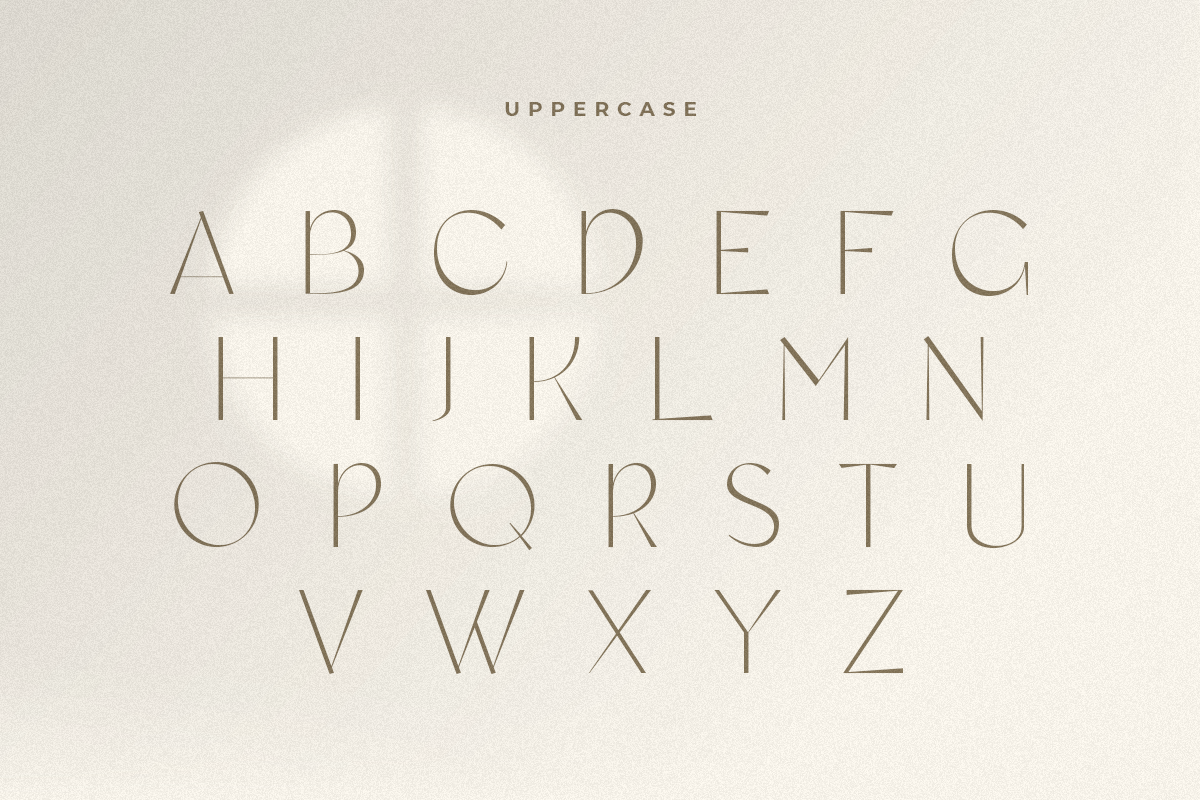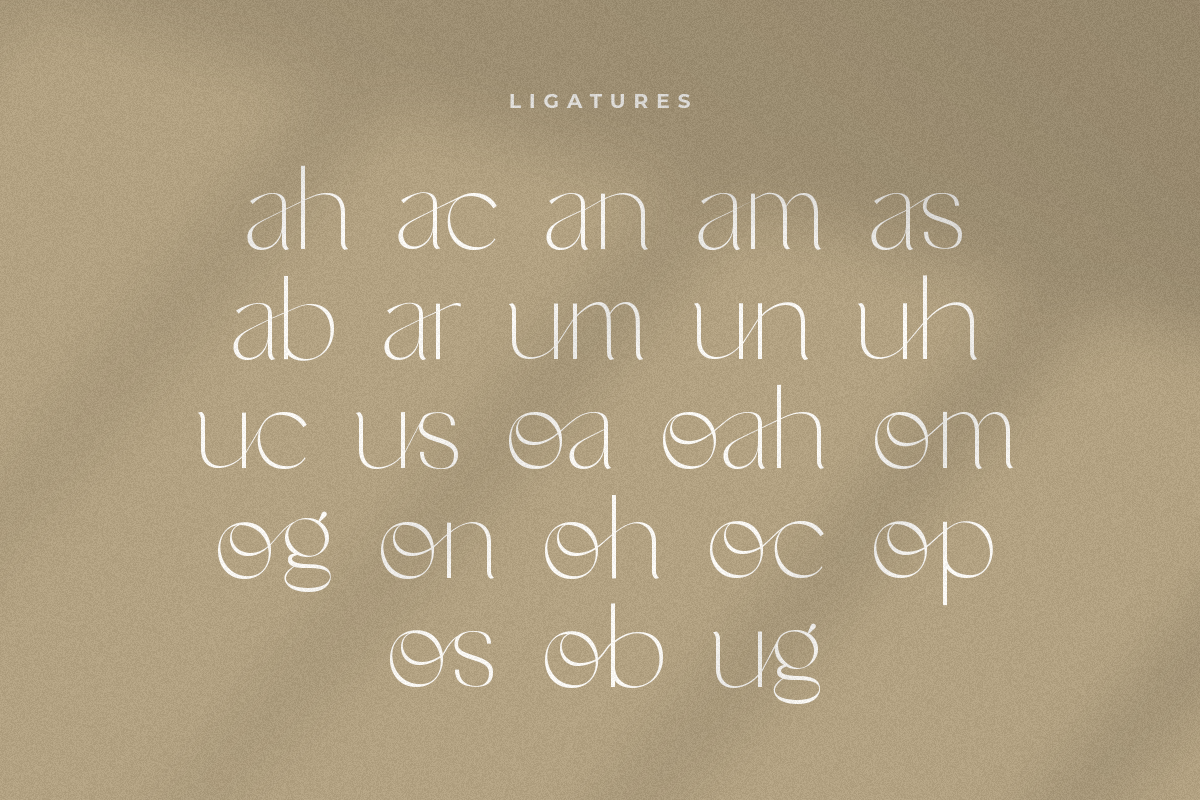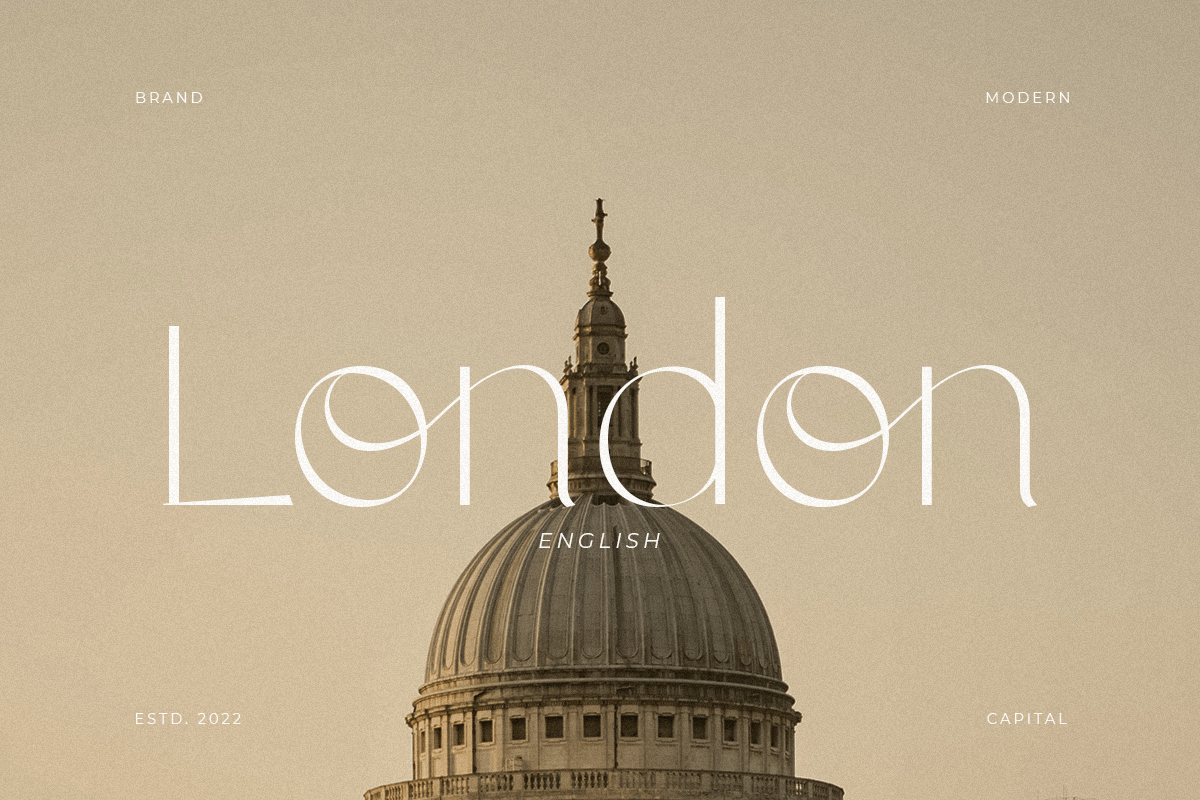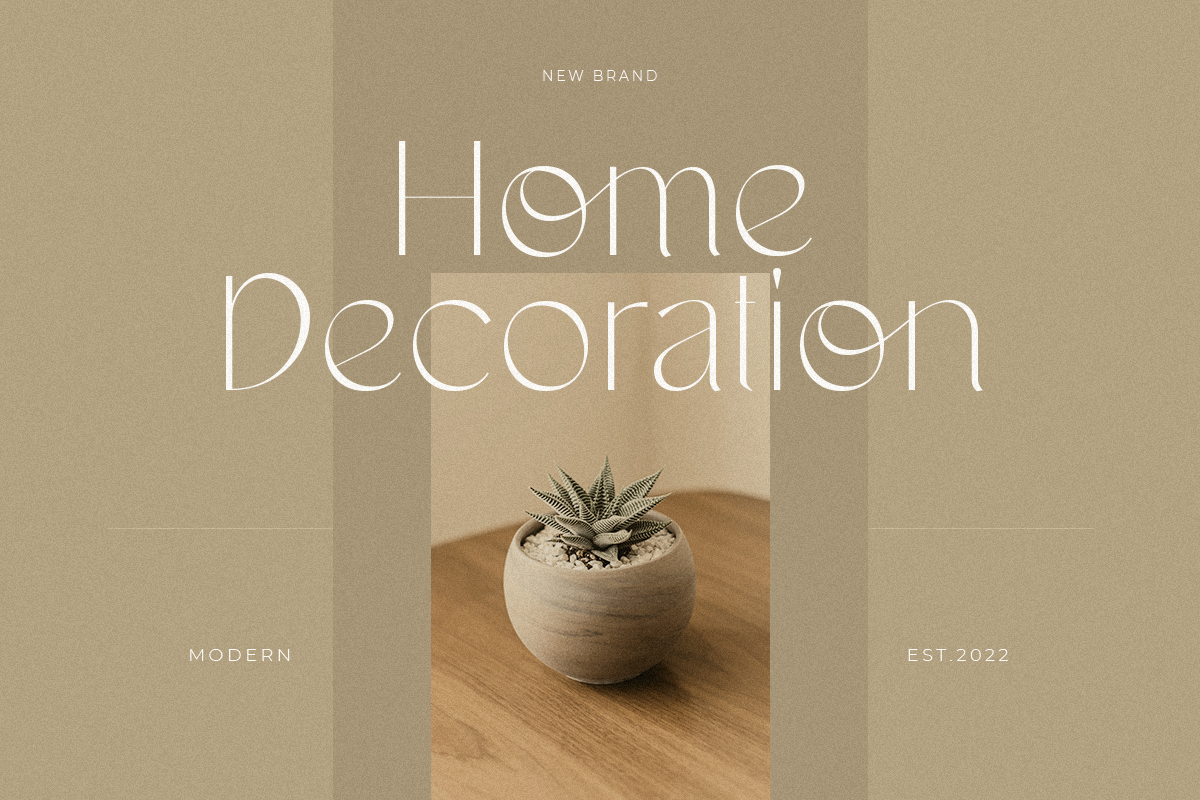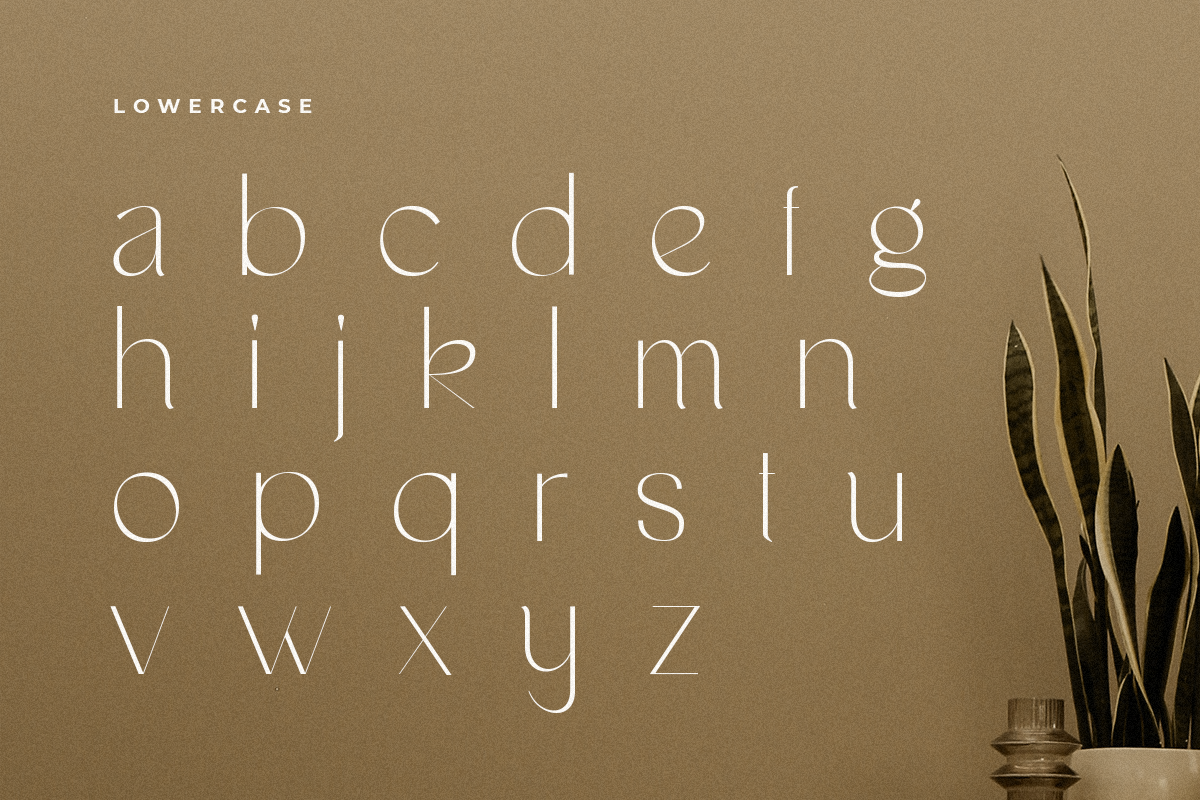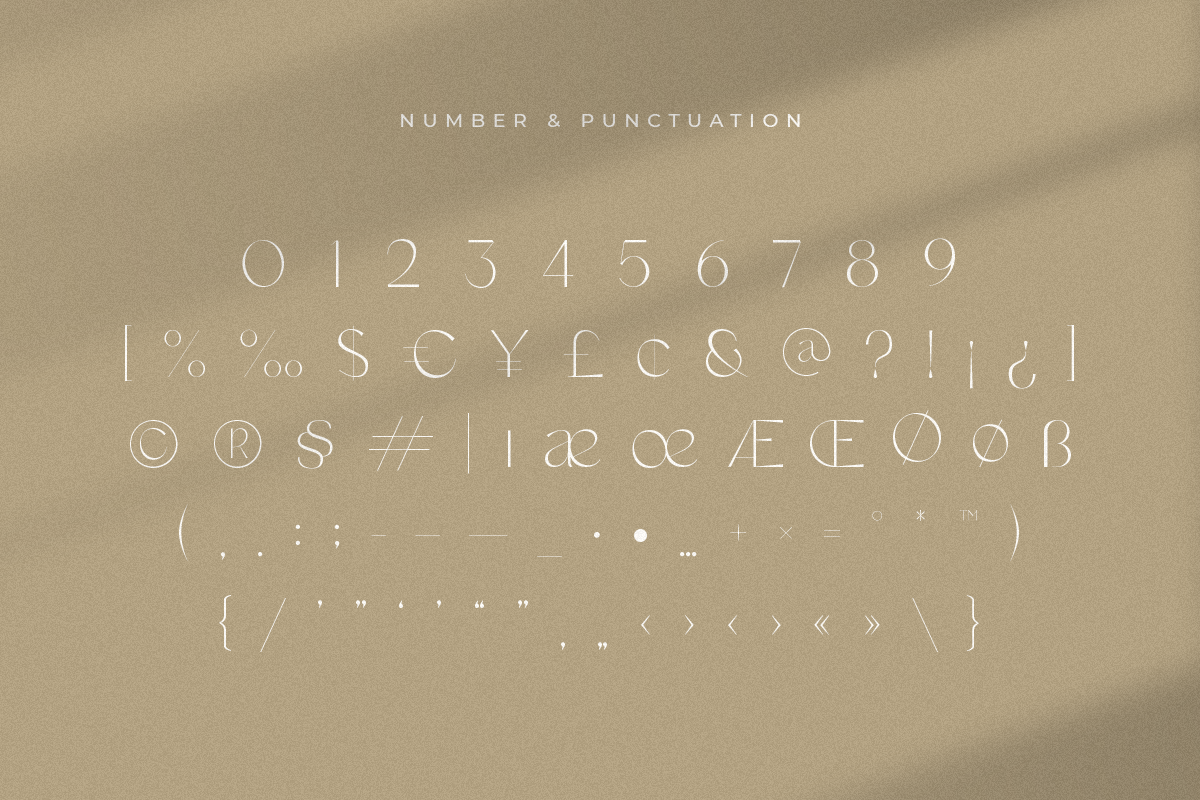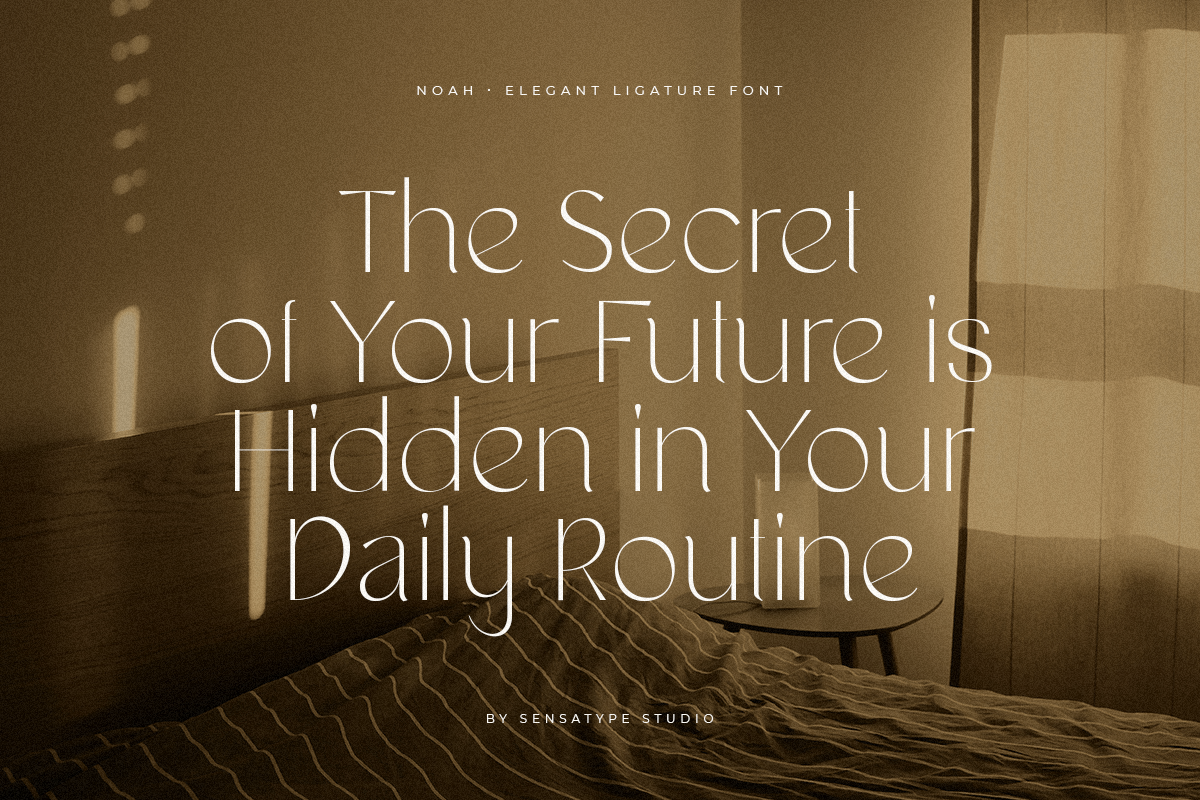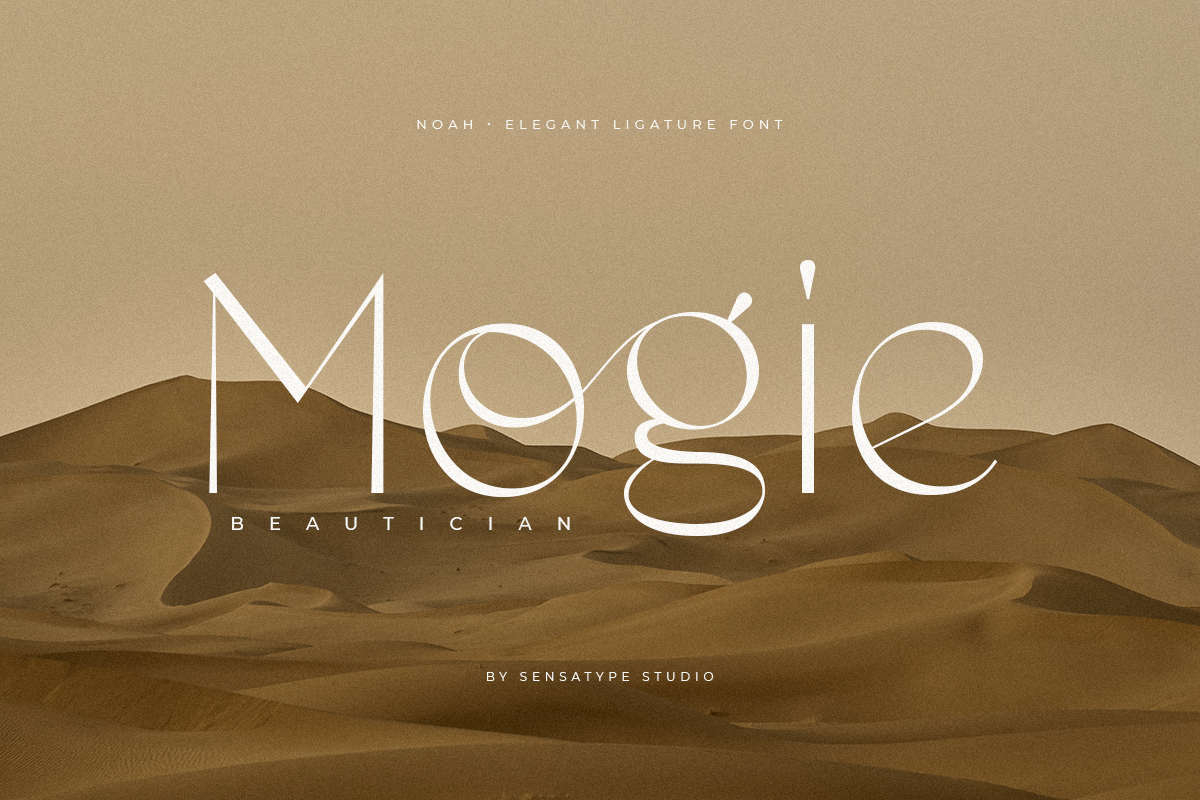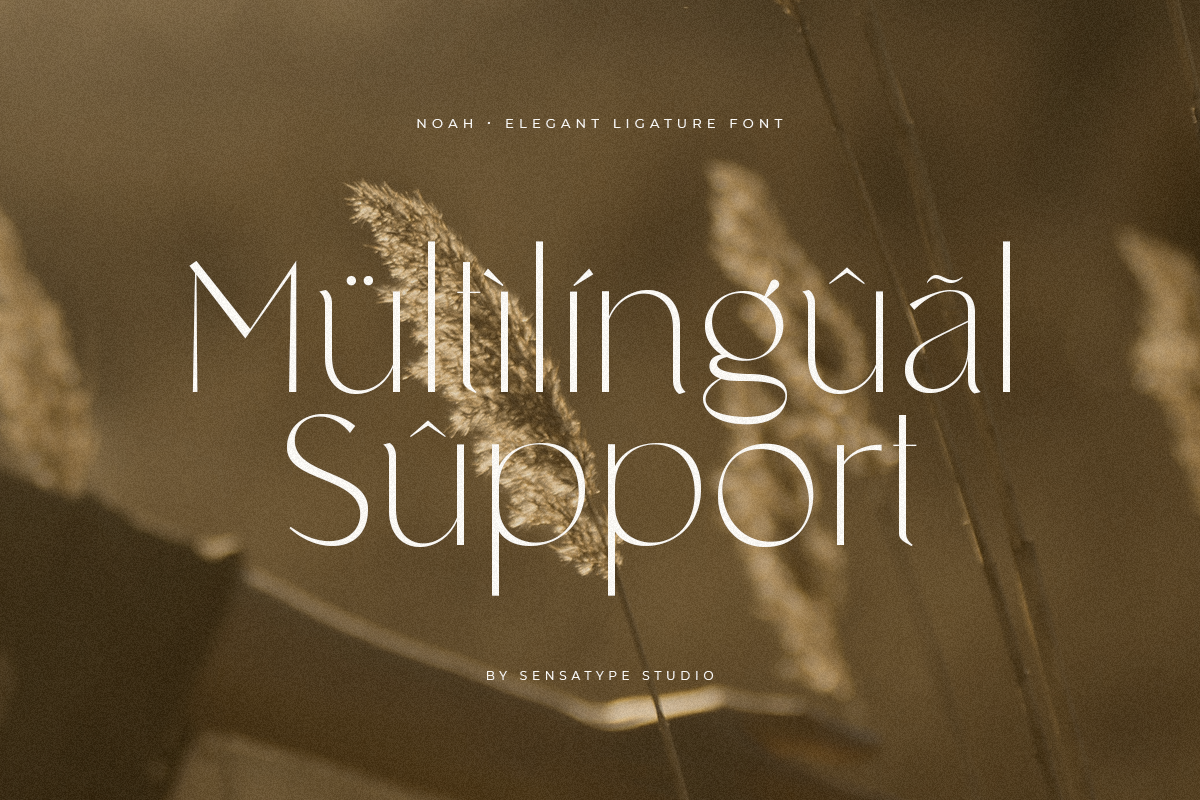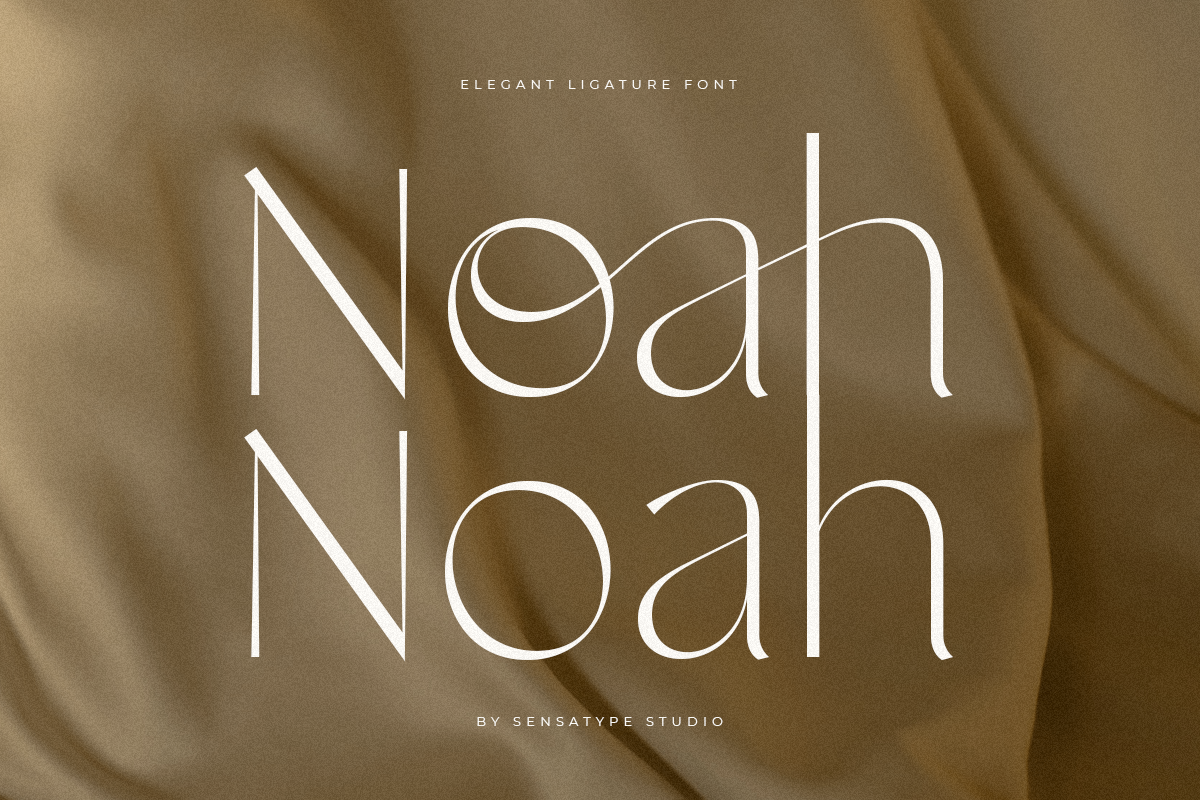
Noah - Elegant Ligature Font
A new font that we created special for branding needs, with extra ligature in unique characters add value of your brand to look more elegant. It's so nice to leverage designer or product owner that need solutions to make their design look more stylish and modern. And specially for Noah font, We prepared any ligatures, and any alternate characters to help you create unlimited variations for your creative needs.
Noah Elegant Ligature Font ready with:
- Any options to get creative variations (combination of Alternate and Ligatures)
- Preview as a inspirations that you can do with Noah font
- Ready with Lowercase and Uppercase characters